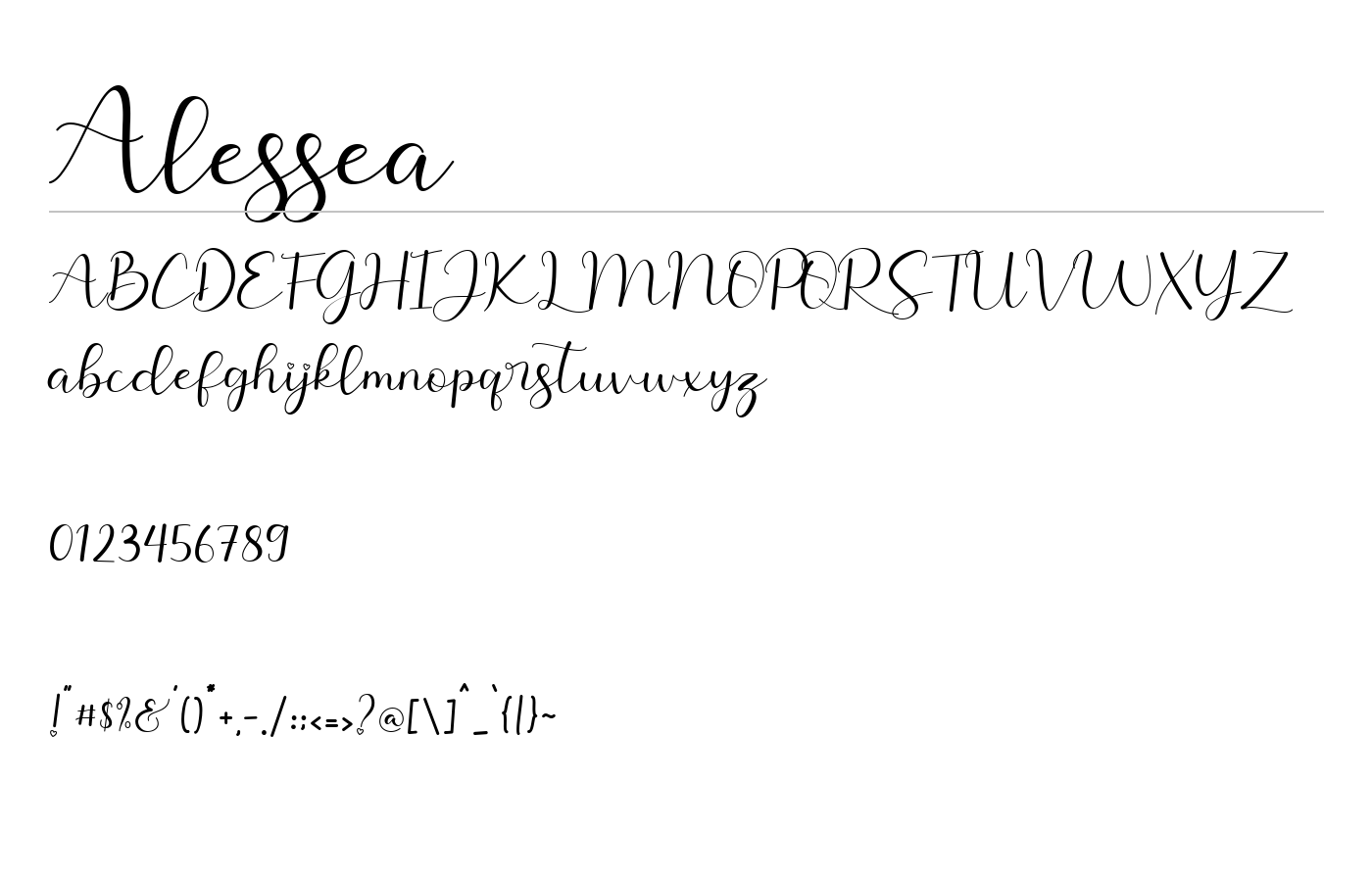
Alessea is an elegant script font characterized by delicate, flowing strokes and graceful curves that evoke a hand-lettered, romantic feel. Its light weight and refined letterforms make it perfect for invitations, branding, and feminine designs where a touch of sophistication and charm is desired. This font works beautifully in logos, headlines, and decorative text where elegance and a personal touch are key.
Alessea Font
About Alessea Font
| Font family | Alessea Font |
| Designer | AEN Creative Studio 2021 |